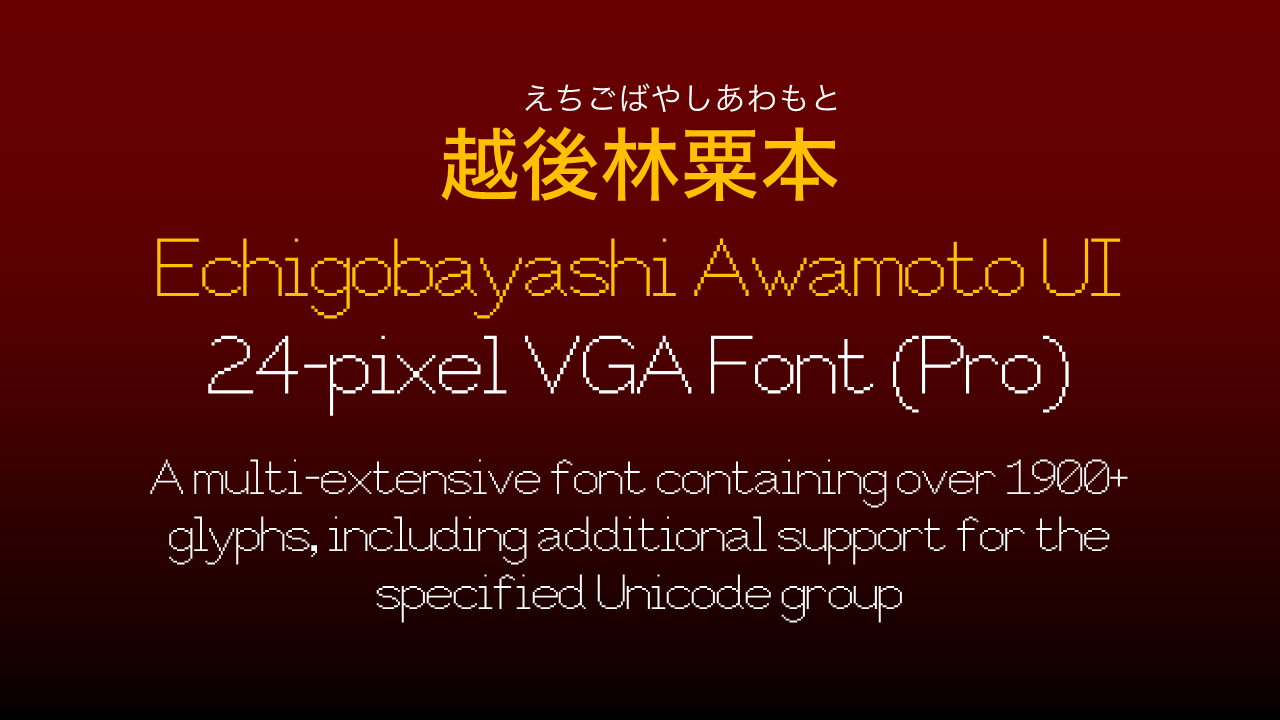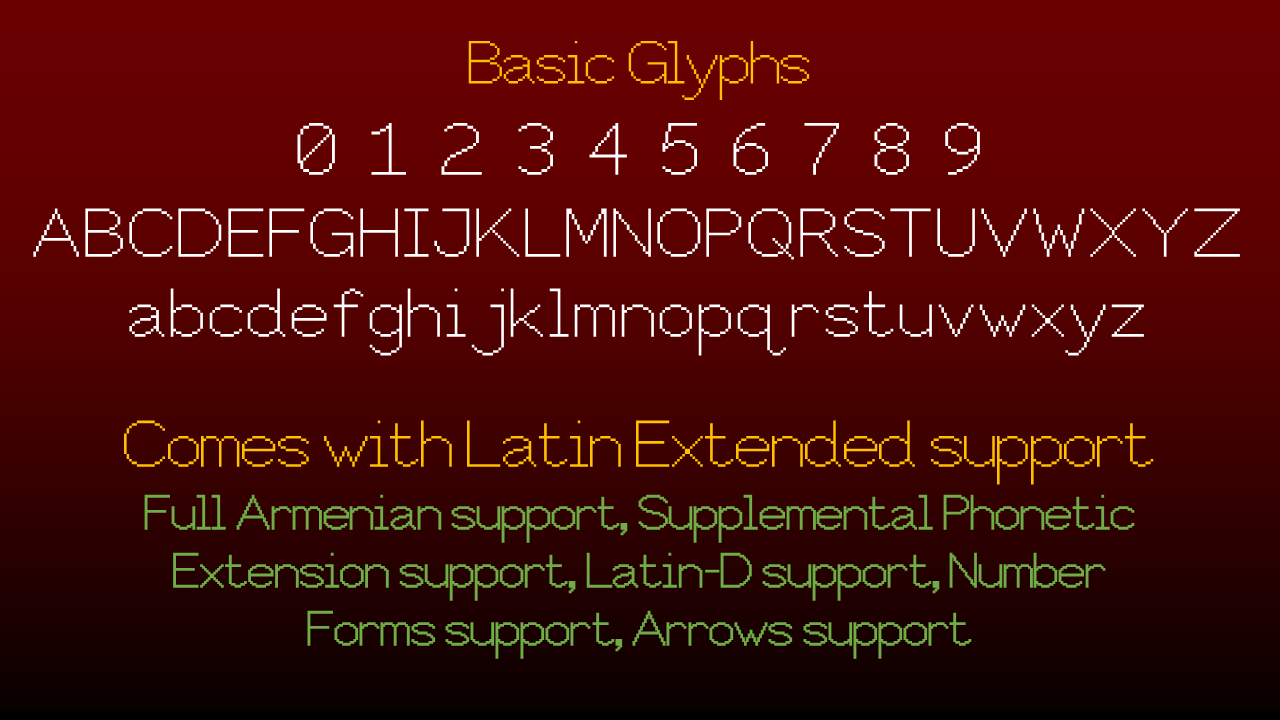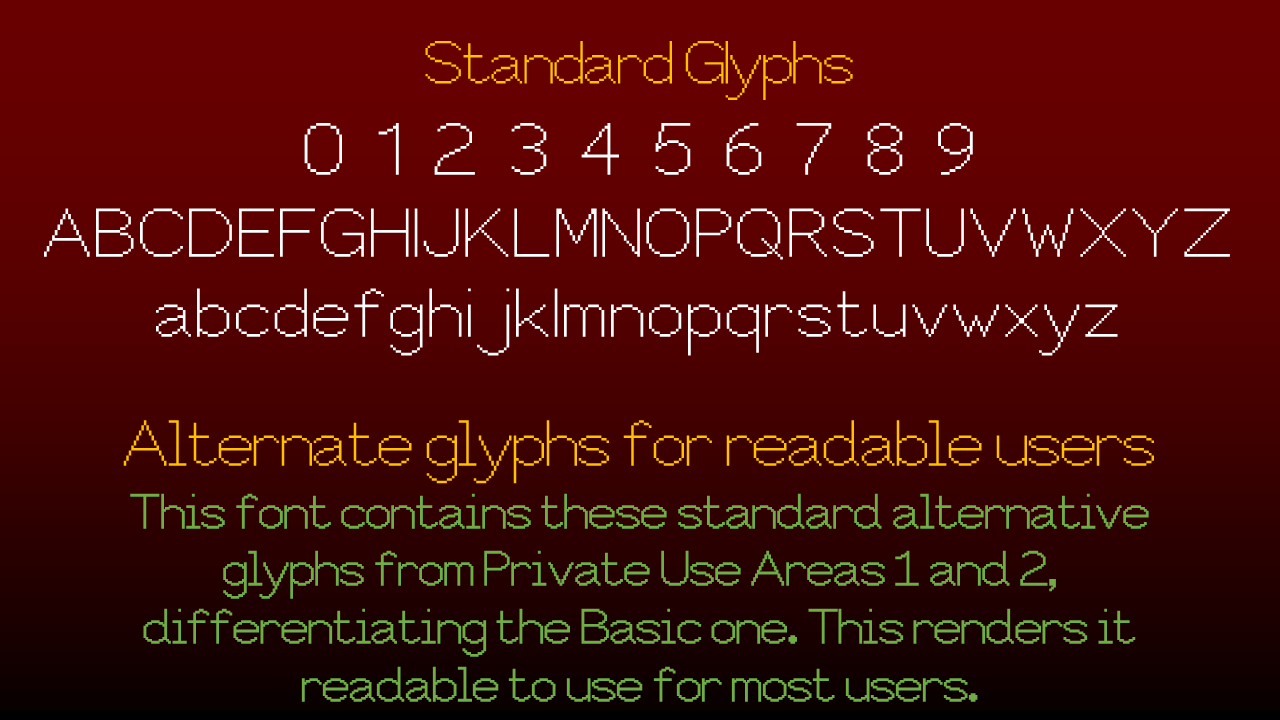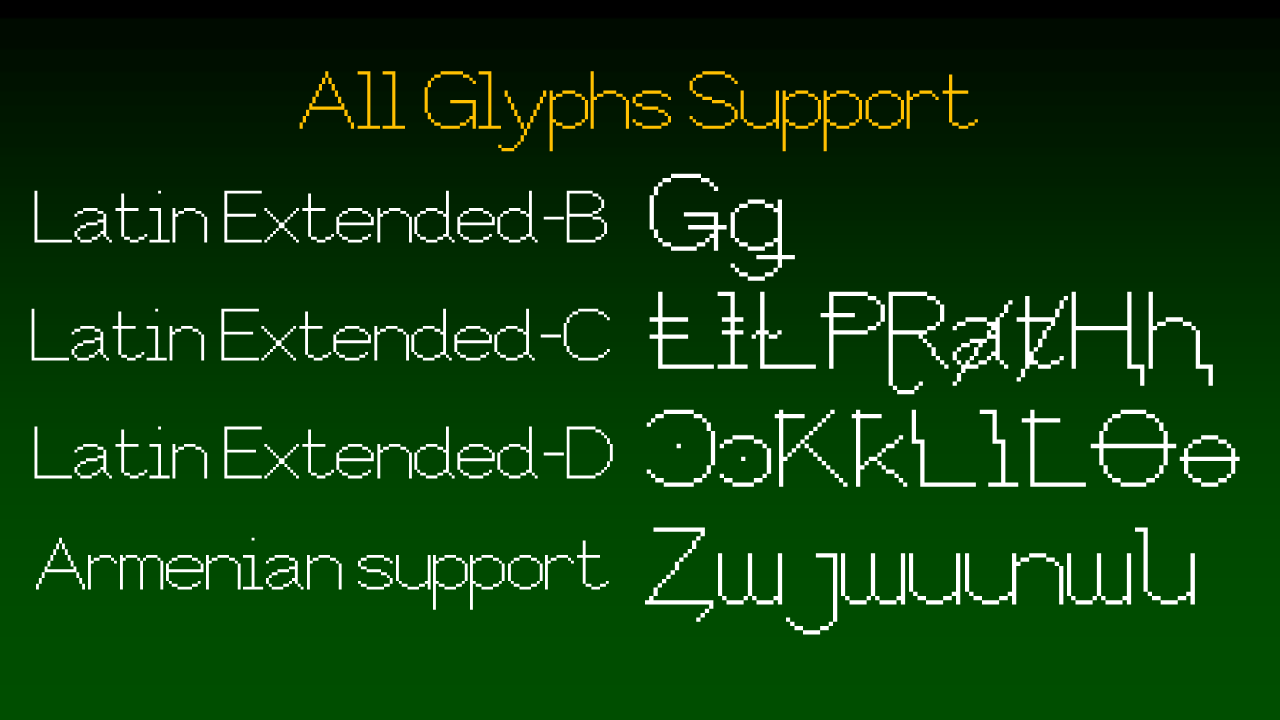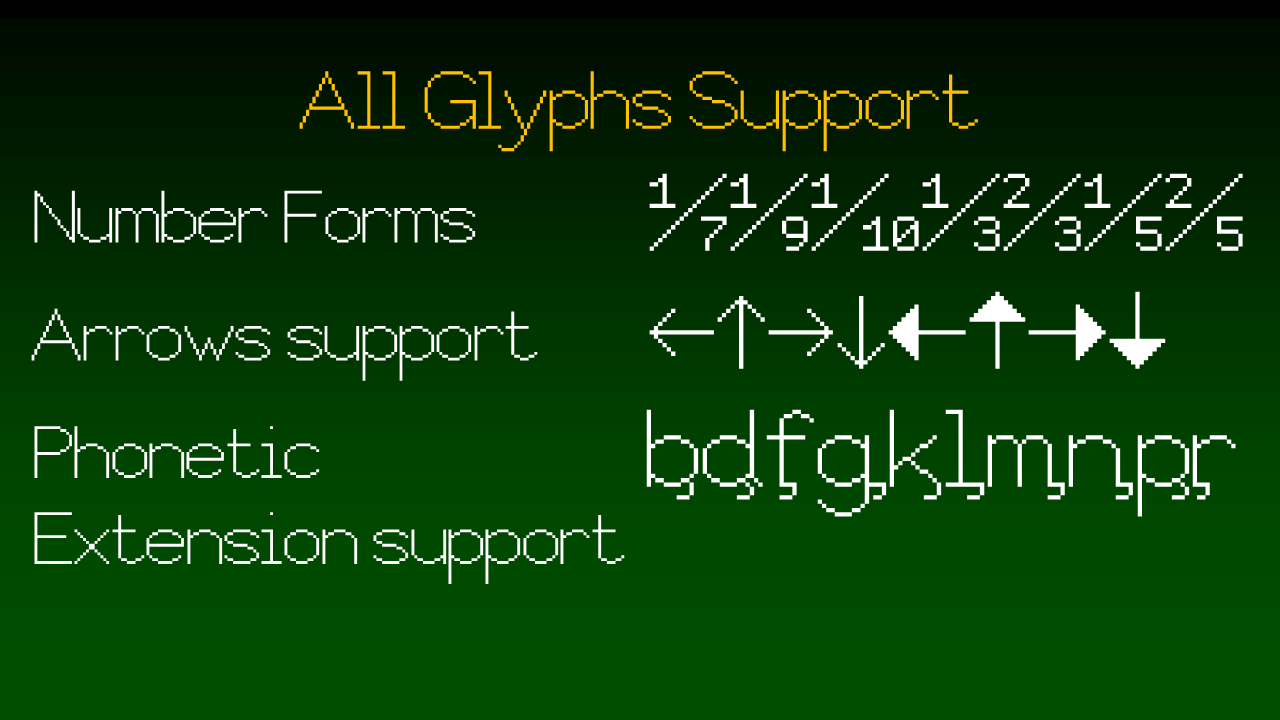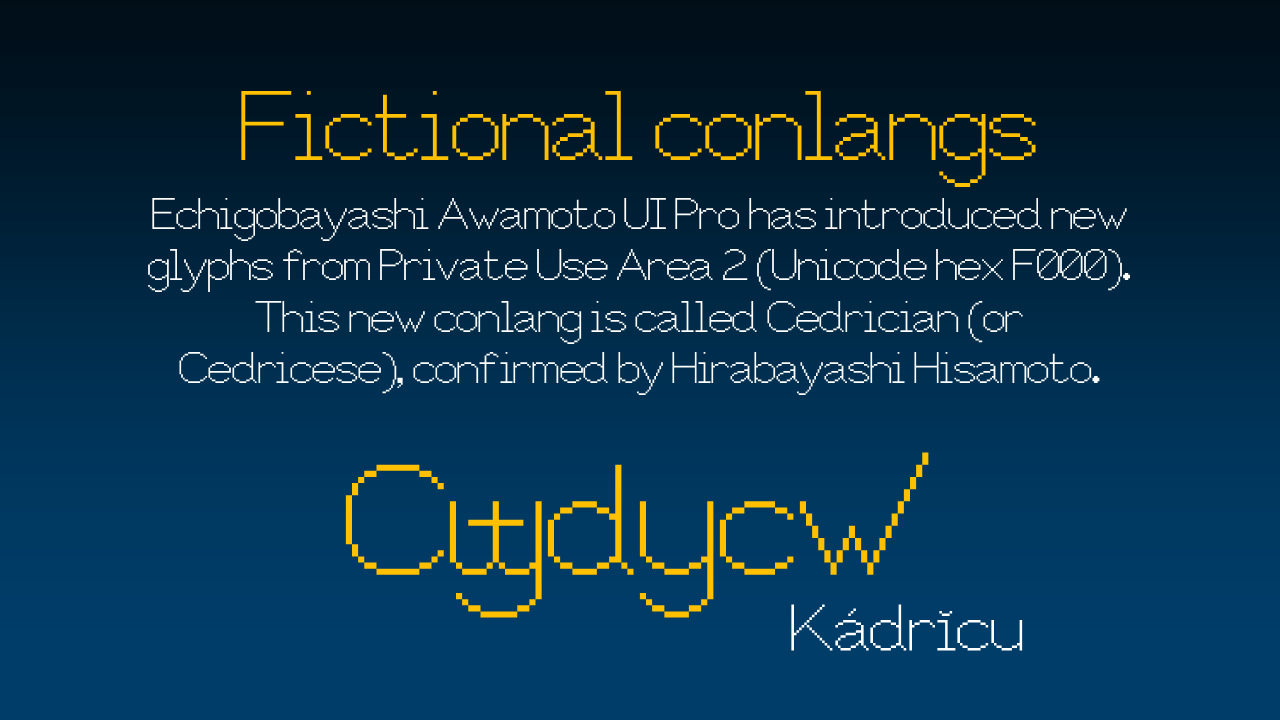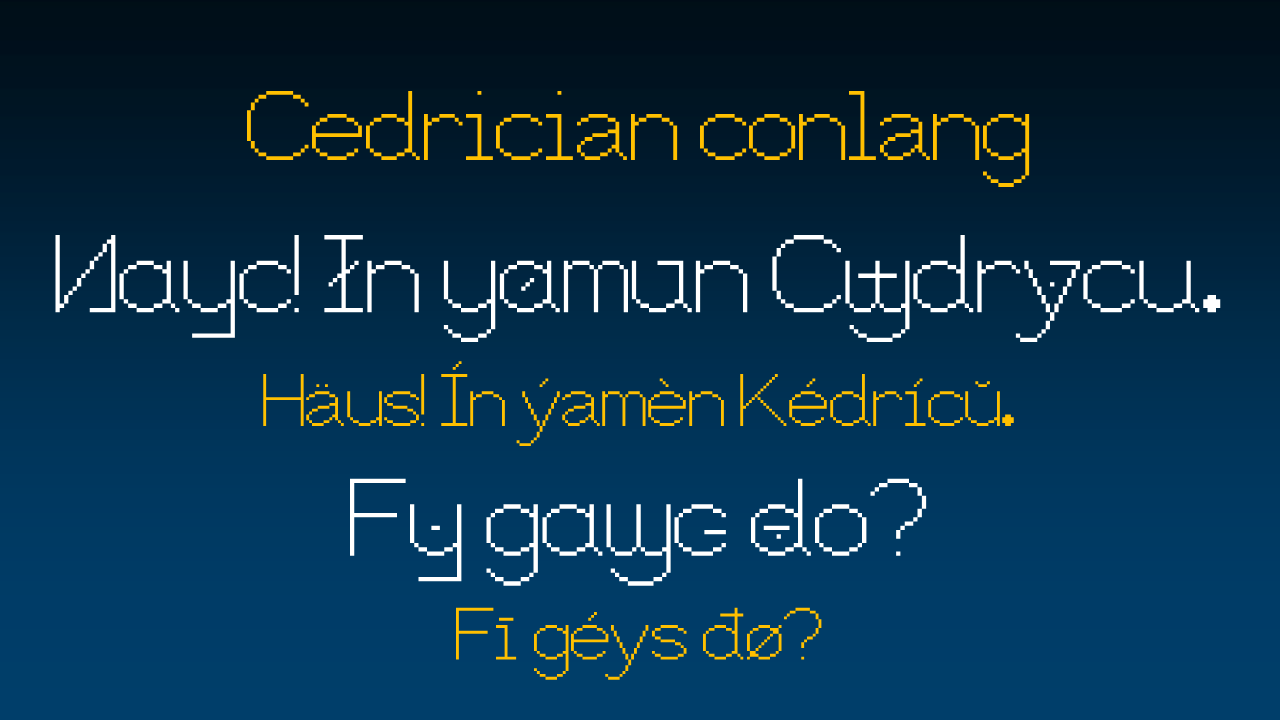
• Echigobayashi-Awamoto UI (or Sengbar Oasis PC VGA, 24px) is a multi-extension font, with additional glyphs added to its Unicode group (full Armenian support, Latin-C Extended support, Latin-D Extended support, with minimum glyphs, Number Forms support, Supplemental Phonetic Extensions support, and Arrows support). This was copied by the extensive font, Sengbar Extension Pro (24px), which contained over 972 glyphs. This new font keeps the distinguishable/distinctive/ambiguous letterforms intact (e.g.: The serifness of I, J, i, j, l, and 1, distinguishable/distinctive forms of b, d, p, q, alleviating further confusion to mirrored letters, and a zero-stroke or a slashed zero), with new glyphs each on separate Unicode area groups.
Private Use Area 2 (Unicode hex F000): Glyphs for the Cedrician (or the Cedricese) language (fictional conlang), standard letterforms and numberforms, an alternate object symbol "OBJ", and oldstyle numeral figures. (Confirmed June 24th, 2025)
(Version 2 consists of missing glyphs from the Supplemental Cyrillic or Standard Cyrillic support. These glyphs were added on December 31st, 2025 - New Year's Eve.)
Glyph usage: 1400+ or 1500+ (1900+ if you check the glyphs on your font browser)
The Pro Extended (Pro X) version fixes the symbols (the times/multiplication symbol "×", and the divided-by/obelius symbol "÷"), adds new symbols to the General Punctuation tag unicode group, and a new fictional conlang with 900+ or more glyphs, with a title called New Cedrician (or New Cedricese).
The Pro G version adds all the existing glyphs in the Unicode section, including: Lydian, Carian, Lycian, Old Italic (with Oscan bits), Gothic, Miao, Mro, Georgian (Capital only, with mid-Latinized lowercase Georgian letters), and Lisu.
The Math version consists of mathematical alphanumeric symbols (sans-serif, regular and bold, and monospaced), and various mathematical operators.
The most popular “Go-45” version contains only the Shavian alphabet, but through a Latinized form which is equipped through pronunciation, only by using just the Latin/English alphabet and custom-made diacritics. The original Shavian lettering is phonographically designed for the common English language by Kingsley Read, the latter being commissioned by George Bernard Shaw respectively. The modified Shavian lettering contains all lowercase forms provided to capture a Learn-to-Read (“LTR”) standard. Later created by interpreters Jōtarō Gakuhara, Masaya Jindō, and Ryūshō Hiragakiuchi, of which the aforementioned Shavian alphabet can be used through all-accented, all-language usages (even including Japanese).